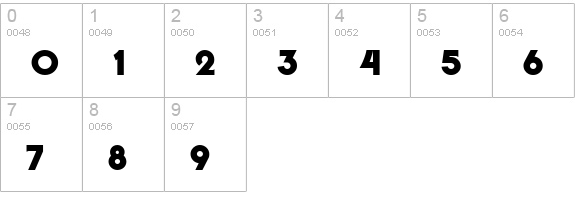
DingDong Normal is the standard, neutral variant in the DingDong typeface family \xE2\x80\x94 well suited to general body text, paragraphs, and standard typographic work.
DingDong Normal font is a charming and playful typeface that will add a touch of whimsy to any design project. With its round and friendly letterforms, DingDong Normal is perfect for creative projects such as greeting cards, posters, and children's books. This font is versatile and easy to read, making it suitable for a wide range of applications. Best of all, DingDong Normal font is available for free download at FontsMarket.com. This means that you can easily incorporate this delightful font into your designs without breaking the bank. Don't miss out on the opportunity to add a touch of fun and personality to your projects with DingDong Normal font!